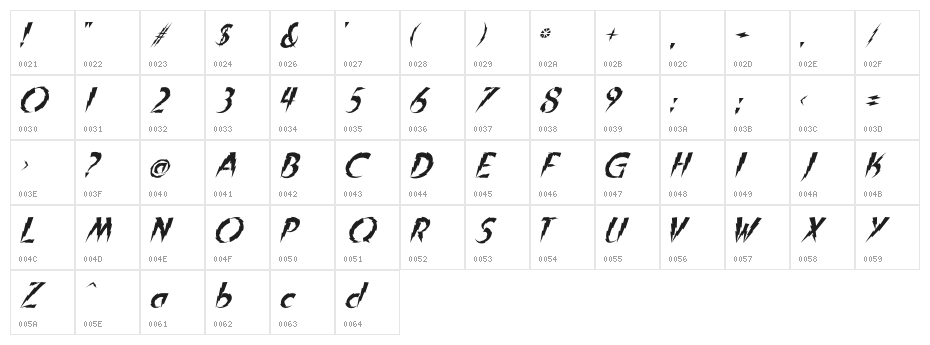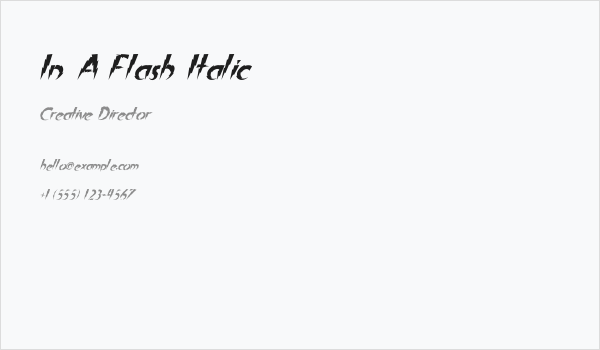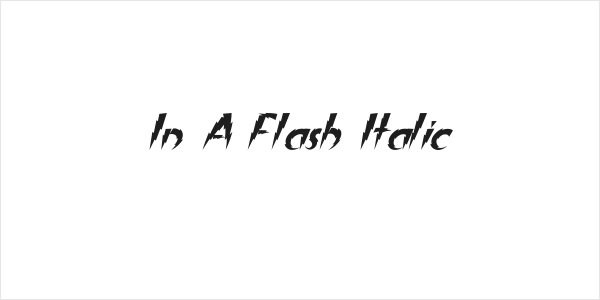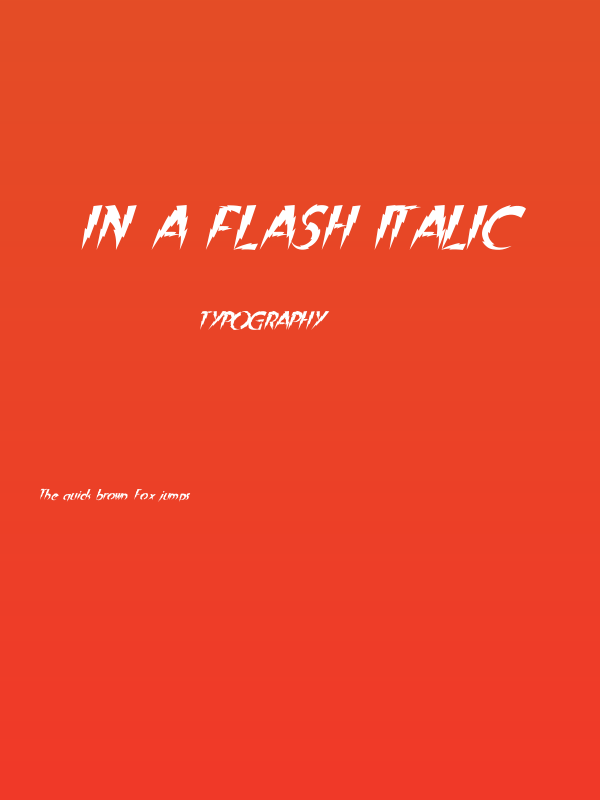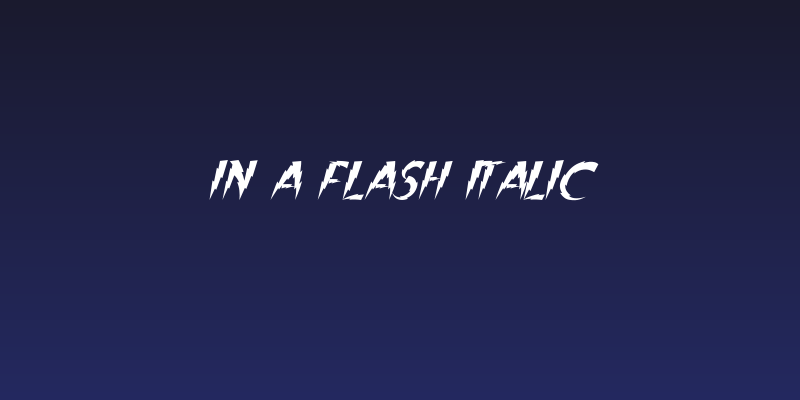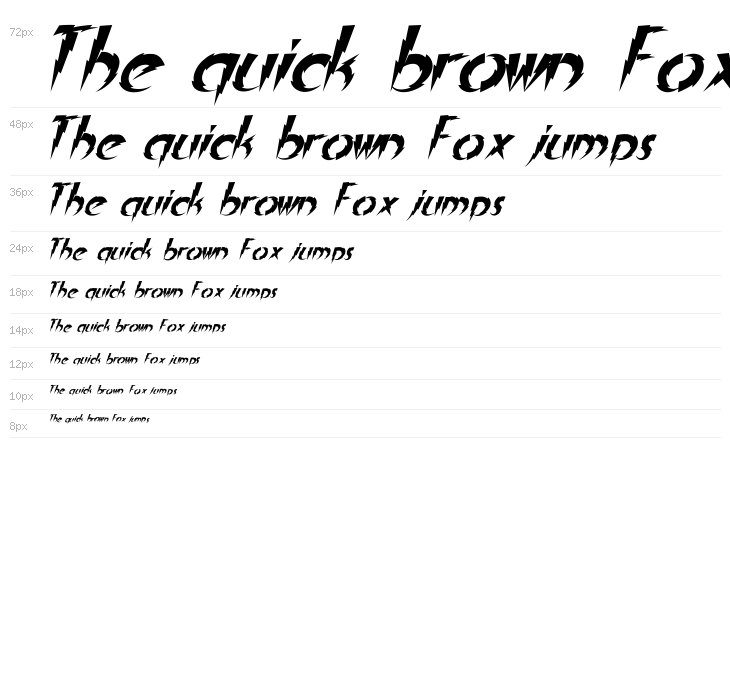
In A Flash Italic Font
In A Flash Italic Description
This font features a dynamic and edgy design with sharp, angular strokes that create a sense of movement and energy. The letters are italicized, adding to the sense of speed and urgency. Each character is crafted with jagged edges, giving it a bold and aggressive appearance. The uppercase and lowercase letters maintain a consistent style, while the numbers and special characters follow the same energetic theme. This font is visually striking and commands attention, making it ideal for projects that require a strong and impactful visual presence.
Proposed ProjectsIdeal for sports branding, action movie posters, dynamic logos, and edgy graphic designs.